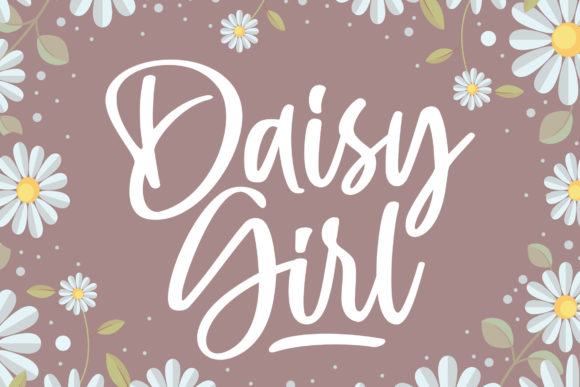
Introducing Daisy Girl Font, the perfect script font to elevate your designs and captivate your audience. Created by Subectype, this font is specially crafted to add a touch of friendliness and flow to your projects.
With Daisy Girl, your ideas will come to life in a realistic and breathtaking manner. Its handwritten style exudes charm and elegance, making it an ideal choice for display text that demands attention. Whether you're designing logos, invitations, or social media graphics, this font will truly make your creations stand out from the crowd.
One of the highlights of Daisy Girl Font is its PUA encoding. This means that accessing the numerous glyphs and swashes is a breeze, allowing you to effortlessly enhance your designs with unique flourishes and decorative elements. Let your creativity run wild as you personalize and customize your typography with ease.
Imagine the possibilities with Daisy Girl Font. Picture your logo adorning billboards, your invitations making a lasting impression, and your social media graphics captivating your followers. This font has the power to transform your ideas into extraordinary works of art.
Stand out from the ordinary, and let Daisy Girl Font be the secret weapon in your design arsenal. Its unique and captivating style will evoke emotions, leaving a lasting impact on anyone who lays eyes on your creations.
In conclusion, Daisy Girl Font is not just another font. It's a gateway to a world where imagination meets reality, where creativity knows no bounds. Download Daisy Girl Font today and unlock a new level of design excellence. Let your ideas flourish and your designs shine with this remarkable script font.